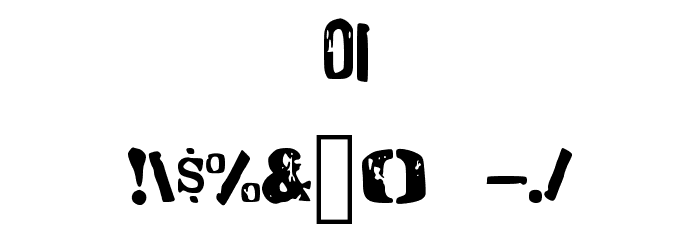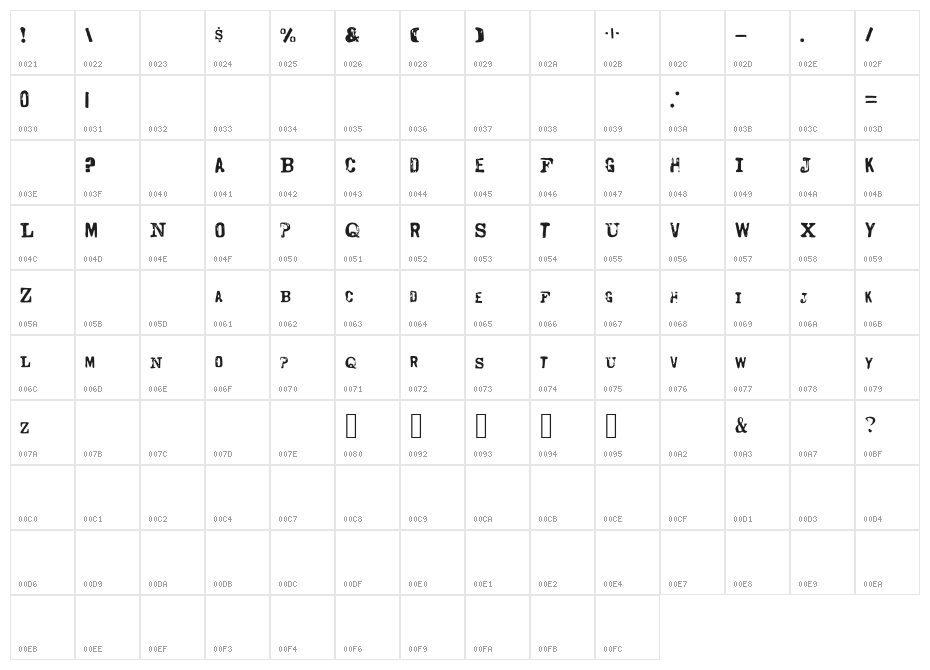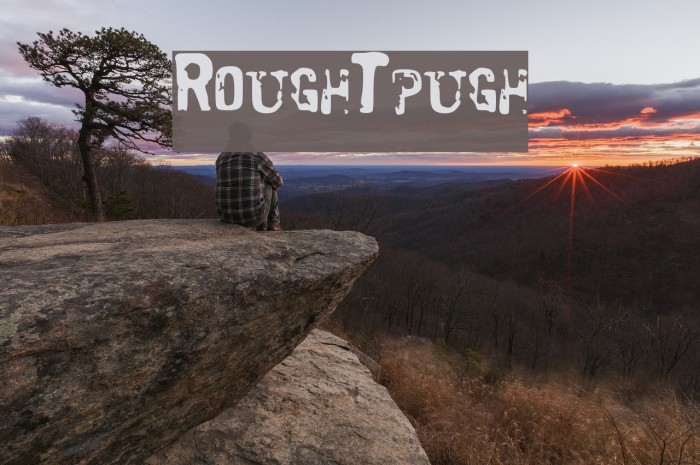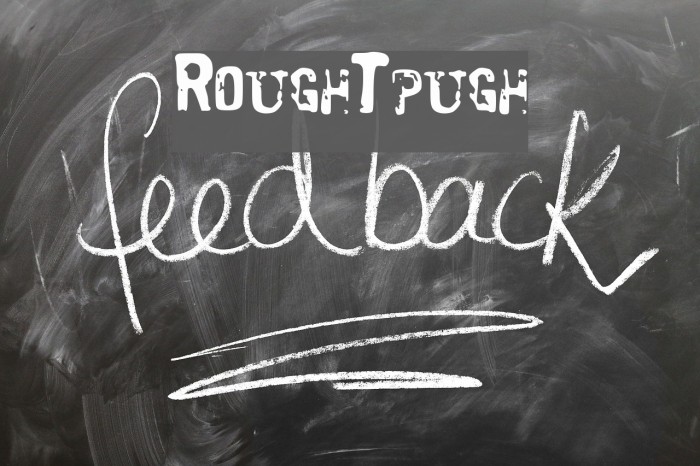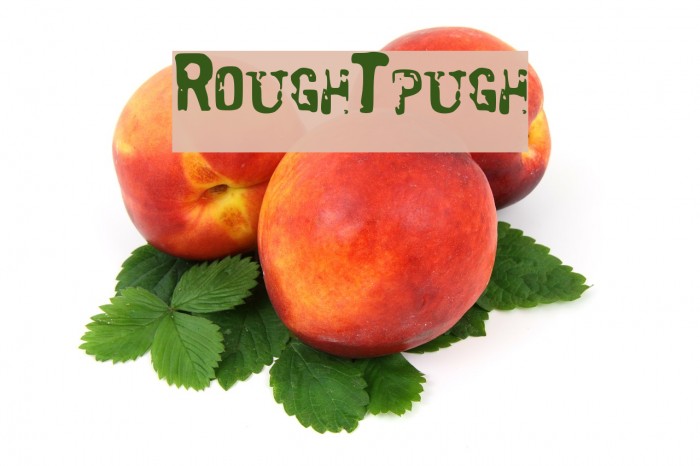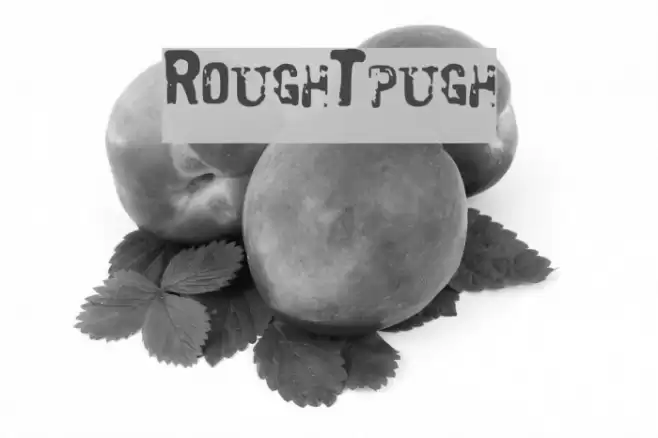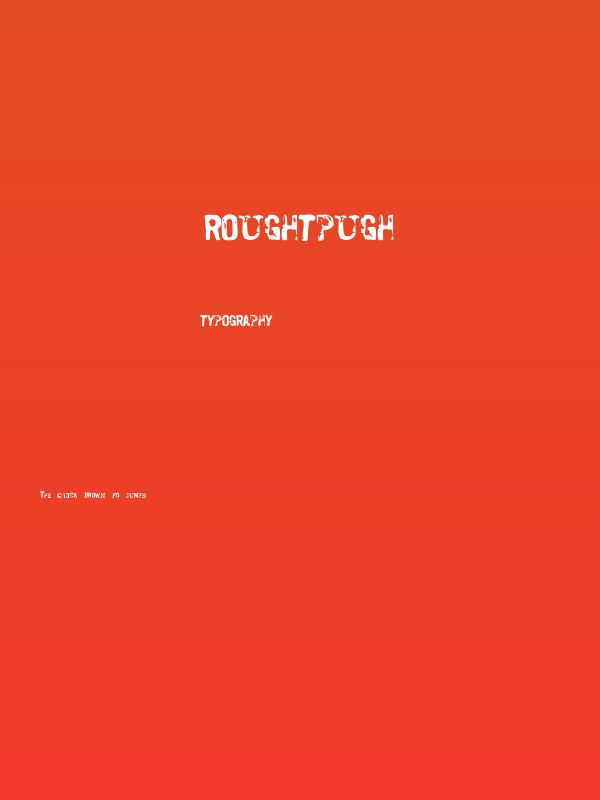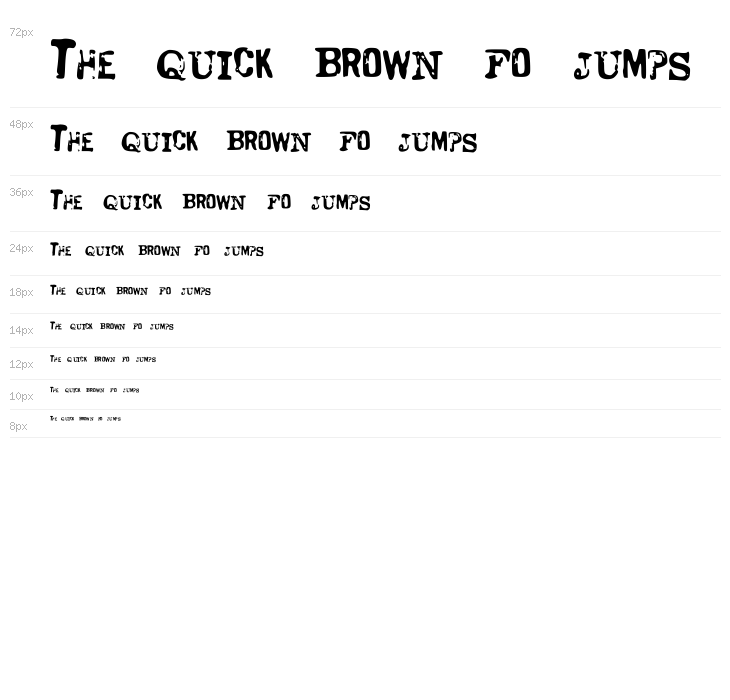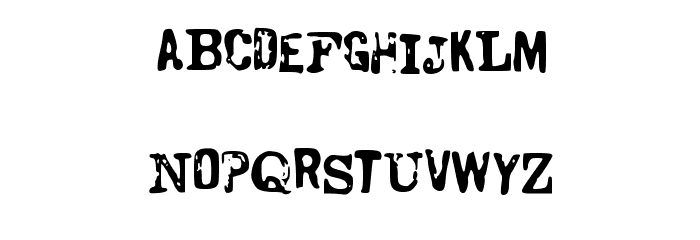
RoughTpugh Font
RoughTpugh Description
This font exhibits a rugged, distressed style with a bold and impactful presence. Each character appears as if it has been weathered or eroded, giving it a unique, grunge aesthetic. The uppercase and lowercase letters maintain a consistent design, with irregular edges and a textured appearance that suggests a sense of age and wear. The numbers and special characters follow the same theme, ensuring a cohesive look across all glyphs. This font is ideal for projects that require a bold statement or a vintage, industrial feel.
| Overall Style | Grunge, Vintage, Industrial |
| Proposed Projects | Ideal for album covers, posters, branding for edgy or vintage-themed products, and any design needing a bold, distressed look. |